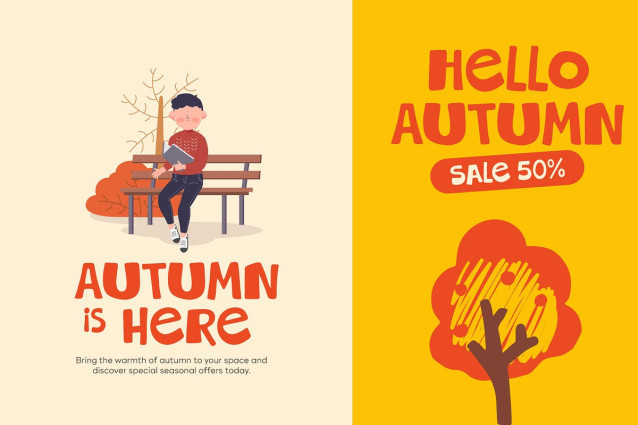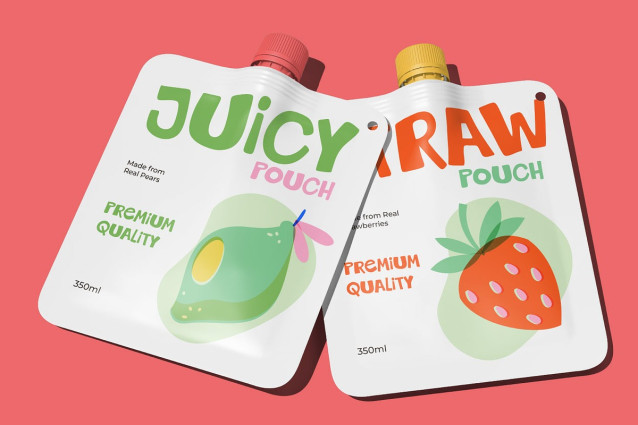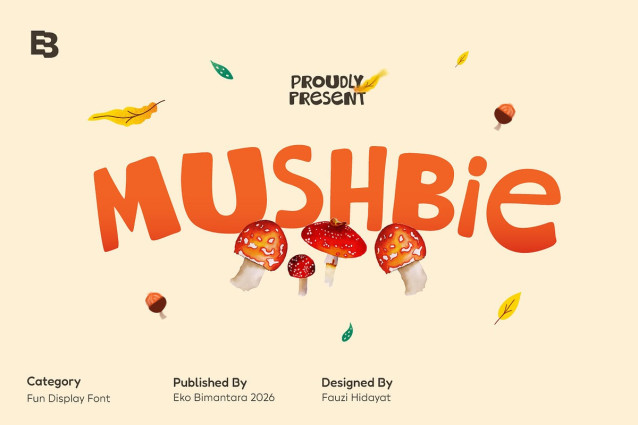
Mushbie Font
Mushbie Font is a playful and expressive display typeface inspired by the whimsical charm and the organic forms of nature . Featuring bold, rounded shapes, soft curves, and a lively personality, it brings a sense of warmth, friendliness, and creativity to any design. Its slightly irregular letterforms add a handcrafted feel while maintaining strong visual impact and readability, making it ideal for children’s designs, packaging, branding, posters, and seasonal or nature-themed projects. Mushbie effortlessly combines fun and character with professional versatility, making it a standout choice for designers seeking a joyful and memorable typographic voice.